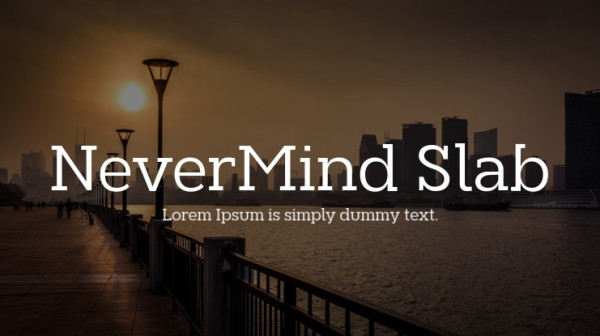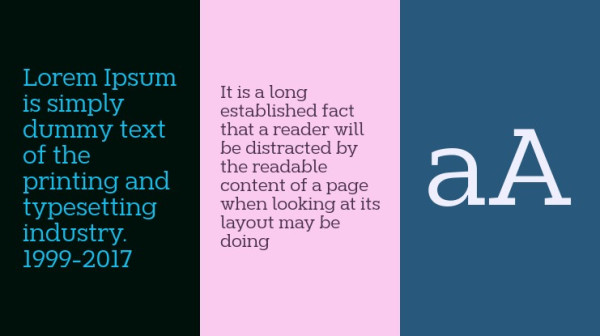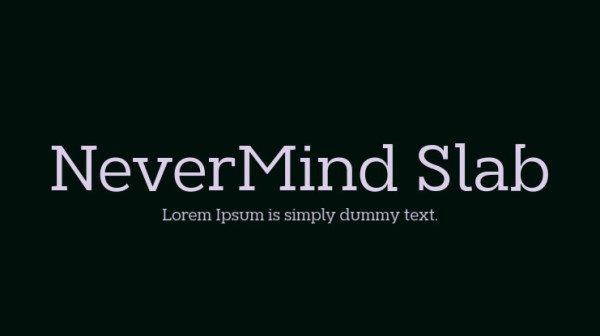
NeverMind Slab Font
NeverMind Slab Font by XMind Ltd is a slab serif font family designed for legibility and to give your design a unique look. Modern and friendly, it can be used for all types of communication.
Nevermind Slab is a part of Nevermind font family that currently includes one basic typeface and more than ten different fonts in various styles, including round, handwritten, serif and so on.